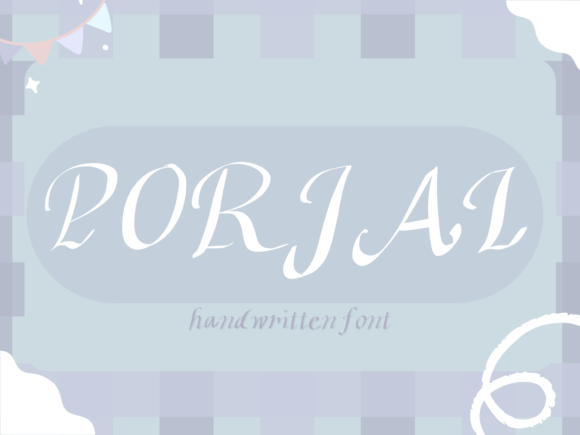
In a world saturated with digital noise, your designs need a voice that cuts through the clutter and speaks directly to your audience. Enter Porjai Font, the ultimate display font that effortlessly embodies playfulness and approachability. Crafted by the talented Pukka De, this charming script font is designed to bring an irresistible touch of friendliness to your creative projects.
With its easy-to-read curves and cheerful demeanor, Porjai Font is the perfect choice for adding a personal touch to your designs. Whether you're crafting handmade cards, creating captivating social media posts, or designing eye-catching posters, this versatile font has the power to transform your words into works of art.
Imagine the delight of your customers as they receive your greeting cards adorned with Porjai Font's warm and inviting characters. They'll feel like you've sent them a piece of your heart, wrapped in a beautiful package of words. And when you use Porjai Font to design your posters, your messages will leap off the page, grabbing attention and sparking conversations.
But Porjai Font is not just limited to the physical world. In the realm of digital design, it shines just as brightly. Whether you're creating stunning website headers, captivating social media graphics, or eye-catching presentations, Porjai Font will elevate your designs to new heights. Its playful nature will engage your audience, inviting them to explore your content with curiosity and delight.
So, embrace the magic of Porjai Font and let your creativity flourish. Join countless designers who have discovered the joy of using this remarkable font to create designs that resonate with their audience. With Porjai Font, your designs will exude warmth, charm, and a touch of whimsy that will leave a lasting impression.